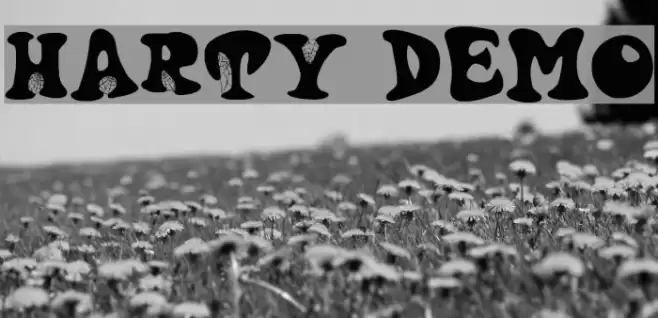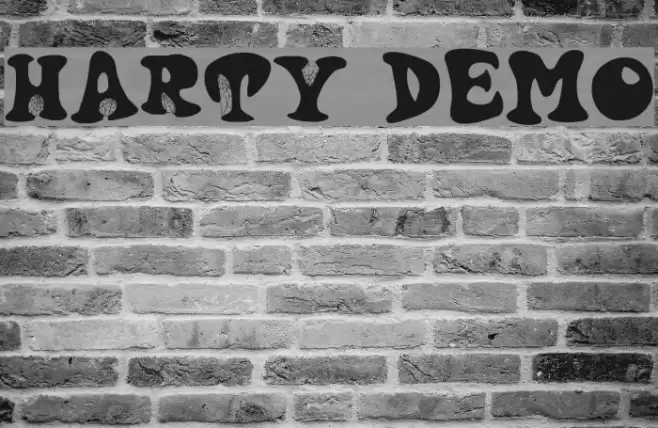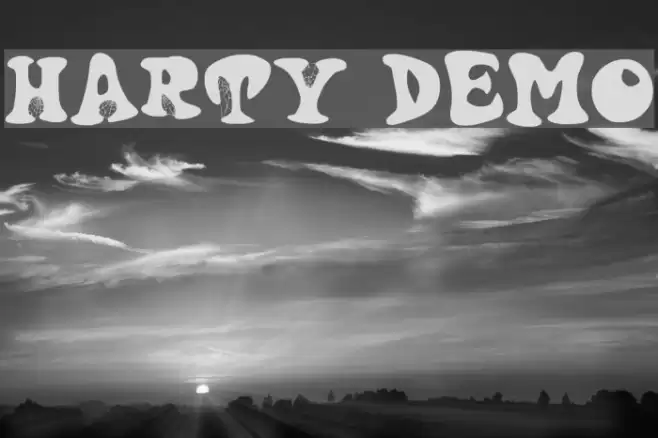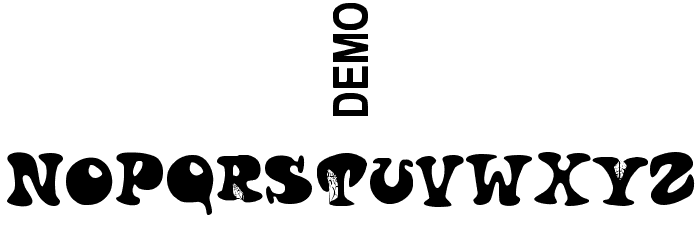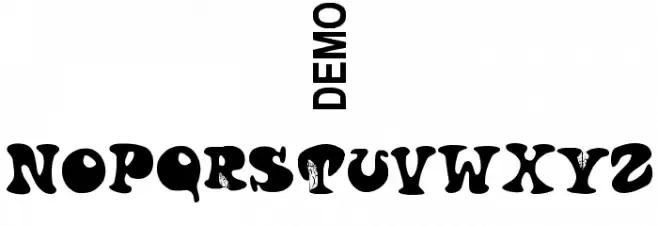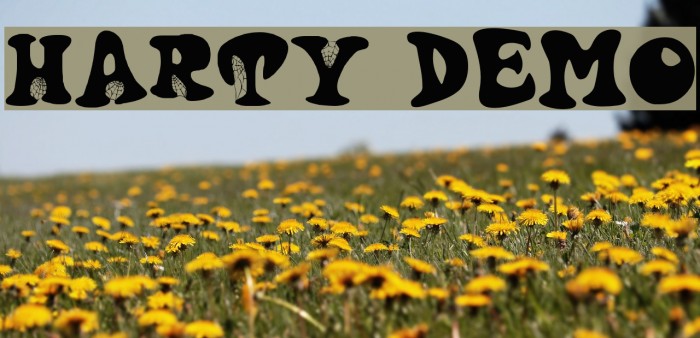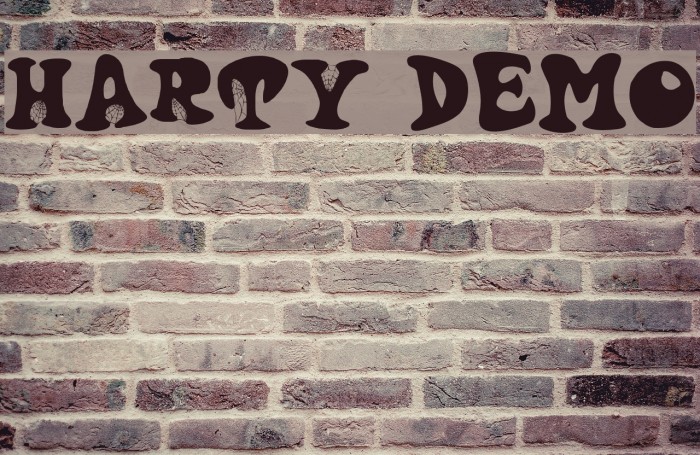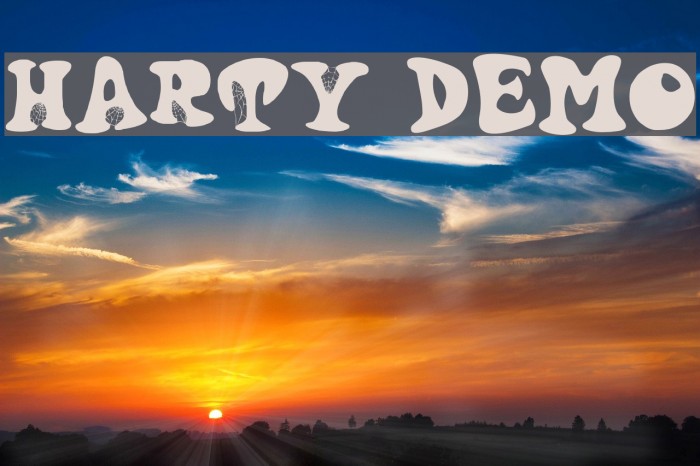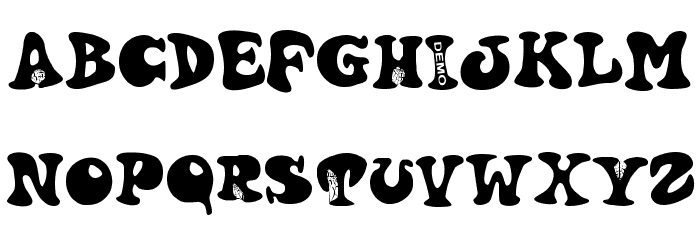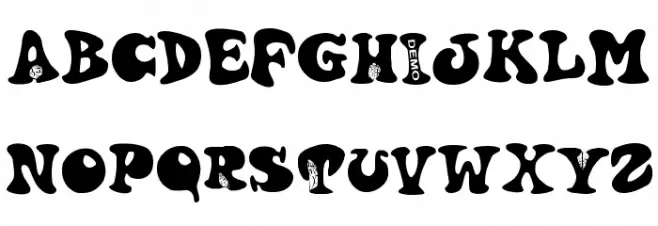
Harty Demo Font
Harty Demo Description
This font features a playful and bold design with a unique, decorative style. Each character is crafted with a whimsical touch, incorporating elements that give it a lively and dynamic appearance. The letters are thick and rounded, with some characters featuring additional decorative elements that enhance their visual appeal. This font is ideal for projects that require a fun and engaging look, making it perfect for creative and artistic endeavors. Its distinctive style ensures that it stands out, capturing attention with its bold and imaginative design.
A playful and bold decorative font with whimsical elements from Uncategorized fonts.